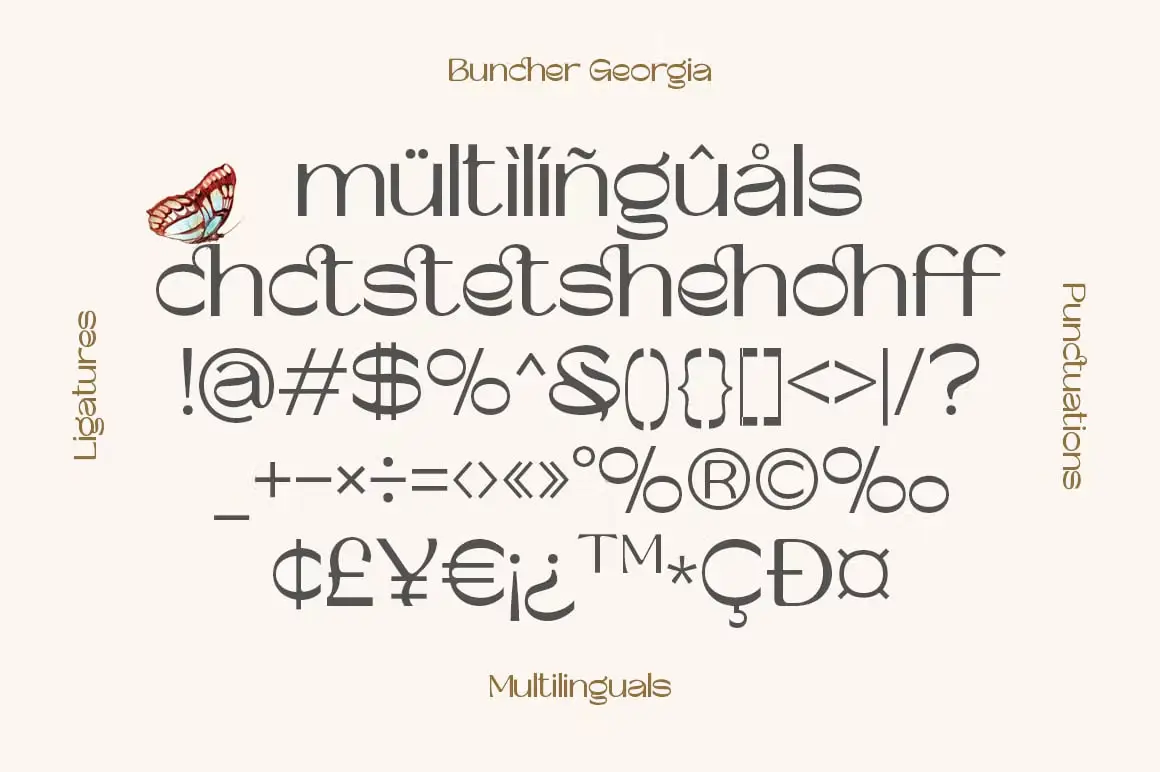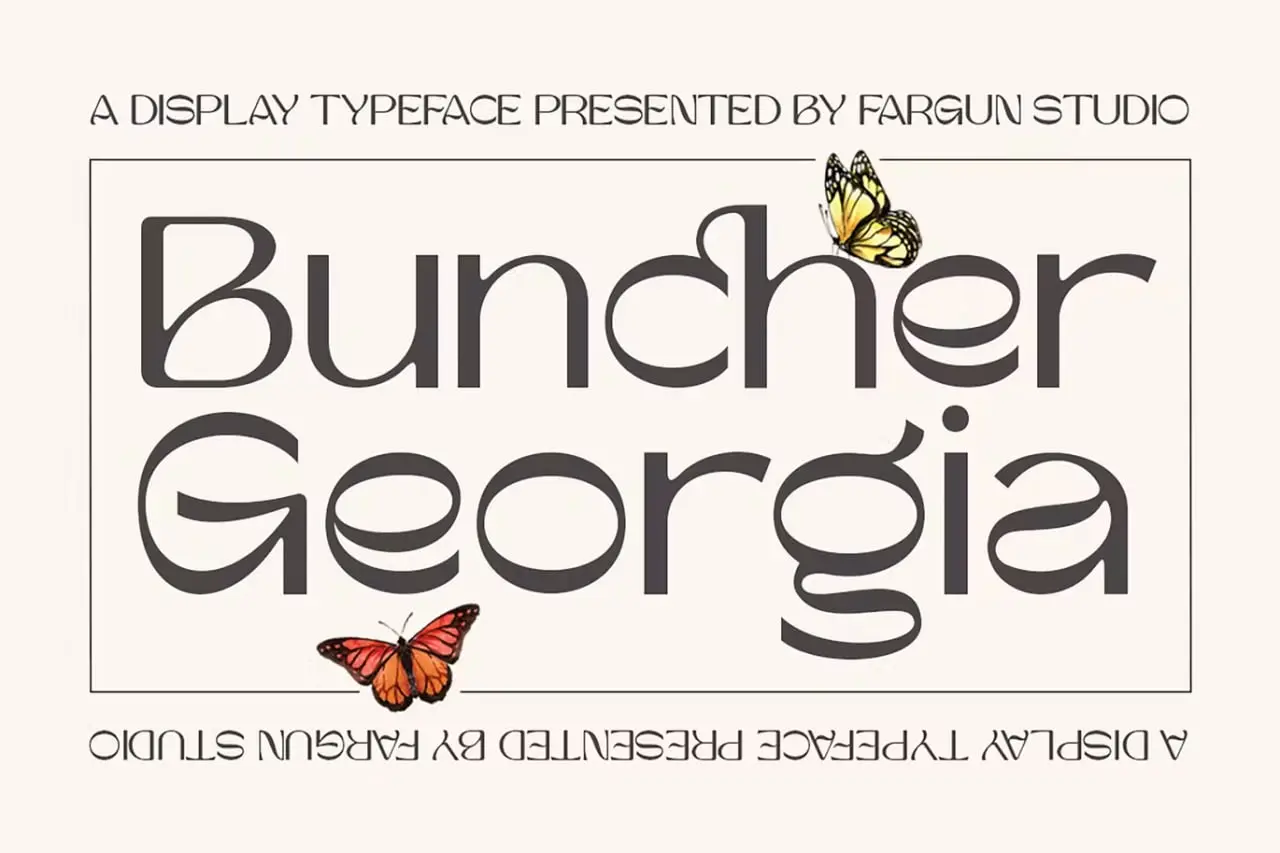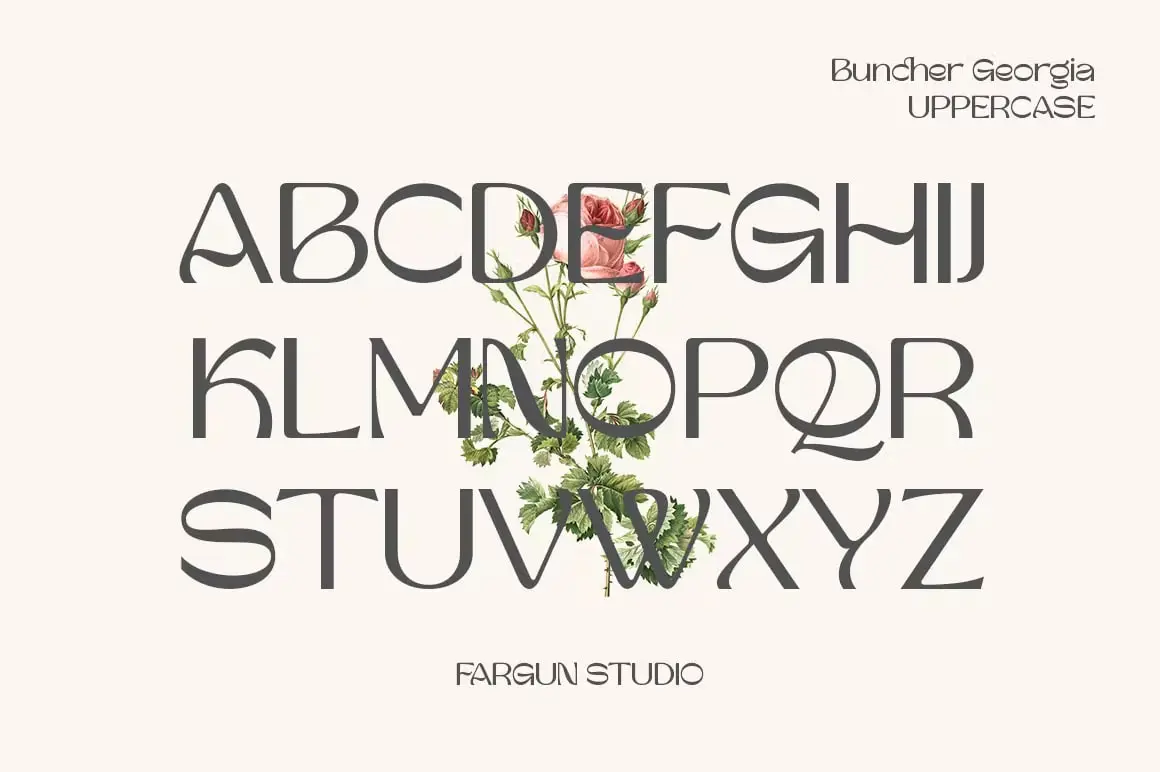
Buncher Georgia Font
The Buncher Georgia Font is a beautifully crafted typeface that combines classic elegance with modern flair. Designed for versatility, this font is perfect for various applications, including branding, logos, web design, print materials, and user interfaces.
• Stylish serif design
• Multiple weights for flexibility
• Clear legibility across sizes
• Rich character set for diverse language support
• Ideal for creating elegant logos and brand identities
• Use in print materials such as brochures and business cards
• Perfect for web typography to enhance readability